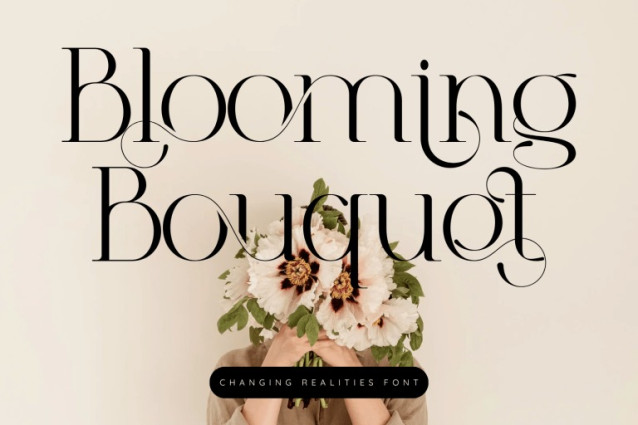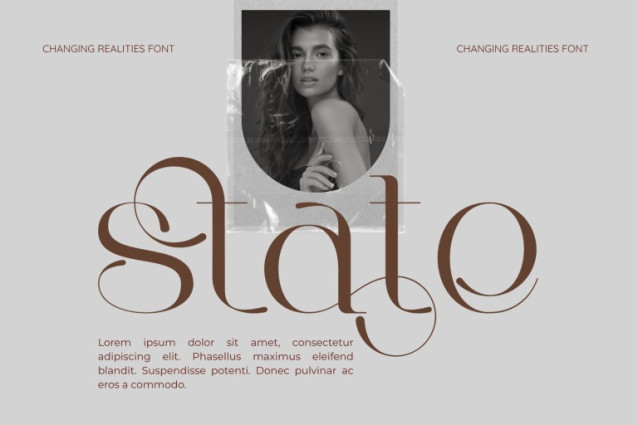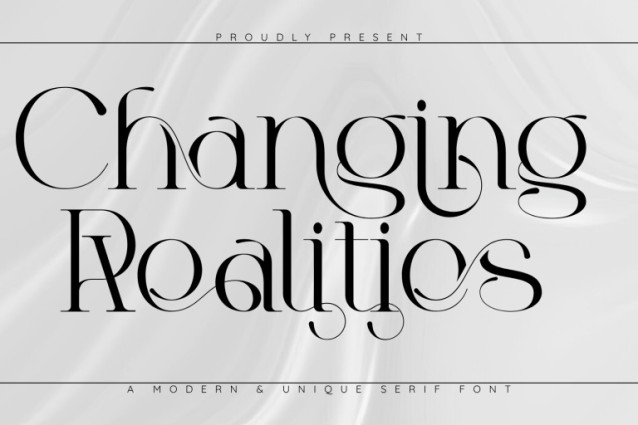
Changing Realities – Modern Serif Font
Changing Realities – Modern Serif Font is an elegant modern serif display font that blends timeless sophistication with contemporary luxury. Featuring high-contrast letterforms, graceful curves, delicate hairlines, and beautifully crafted swashes, this typeface delivers a refined editorial look with an artistic touch. Every character is carefully designed to create a harmonious balance between classic serif elegance and modern decorative styling, making each word feel graceful, expressive, and memorable.
Whether you’re designing luxury branding, fashion magazines, beauty products, wedding invitations, cosmetic packaging, jewelry logos, premium stationery, social media content, or elegant editorial layouts, Changing Realities brings a sense of exclusivity and sophistication to every project. Its stylish ligatures, flowing terminals, and graceful decorative details make it the perfect choice for designers seeking a font that communicates elegance, romance, and premium craftsmanship while maintaining outstanding readability.